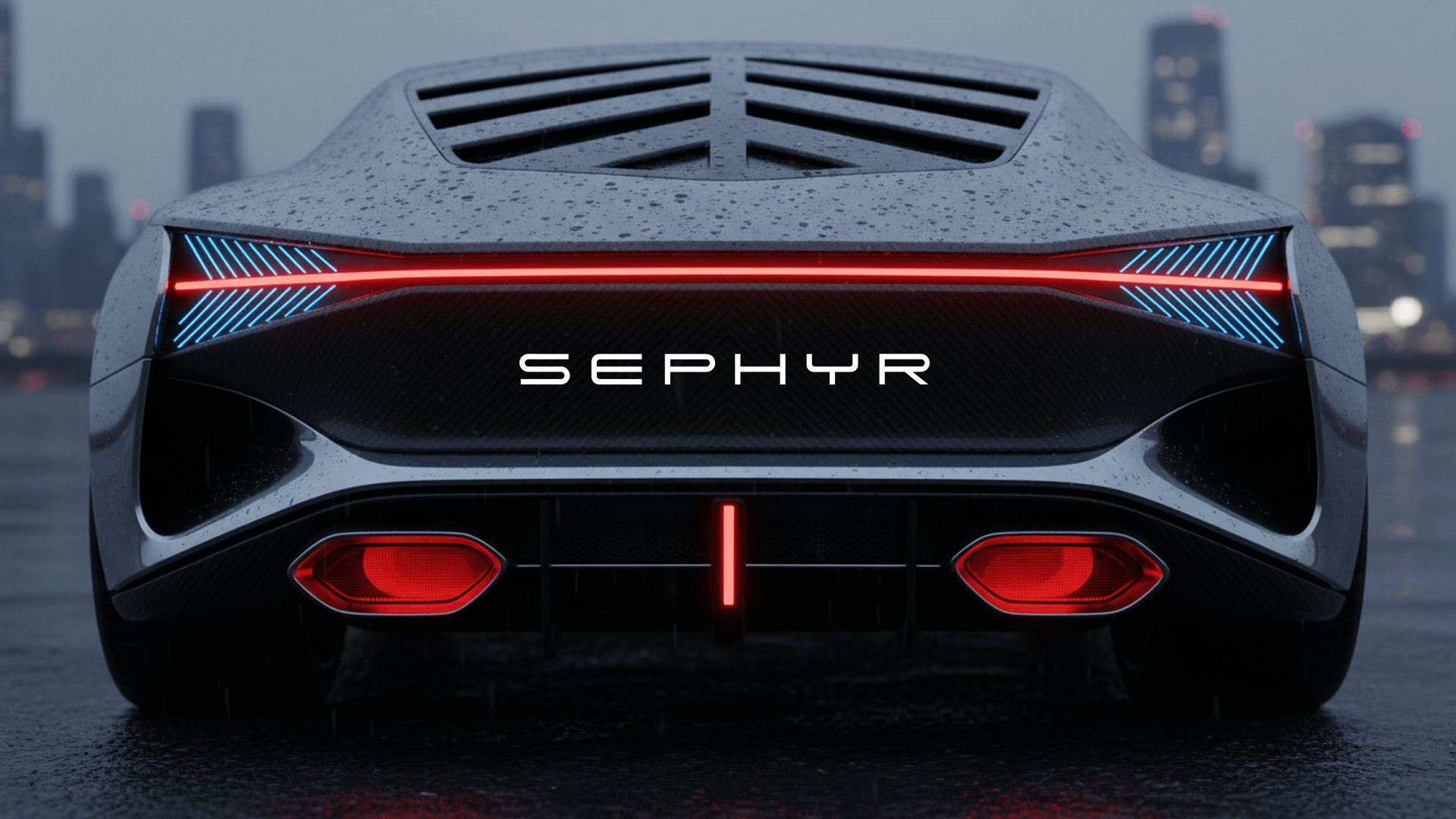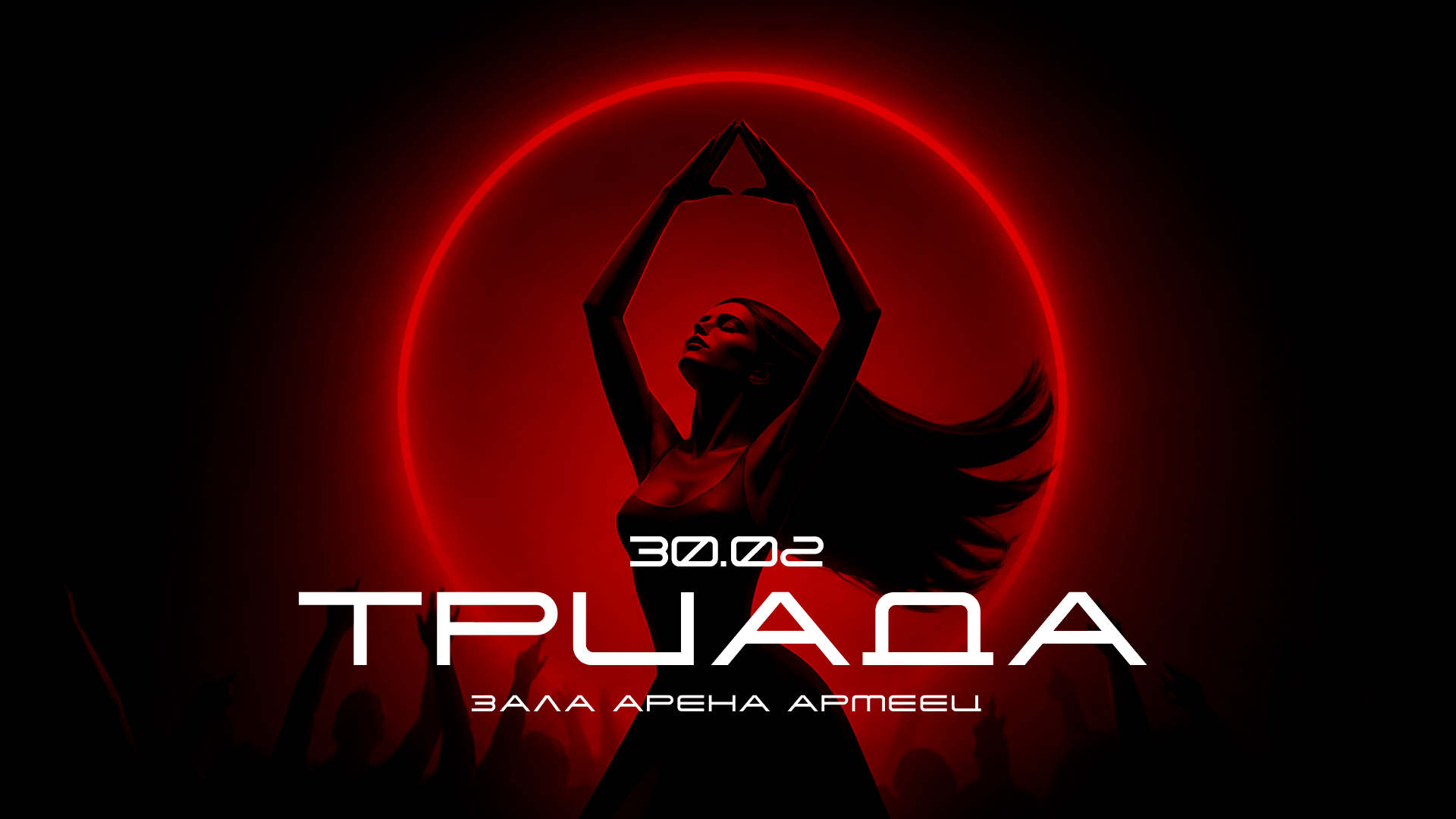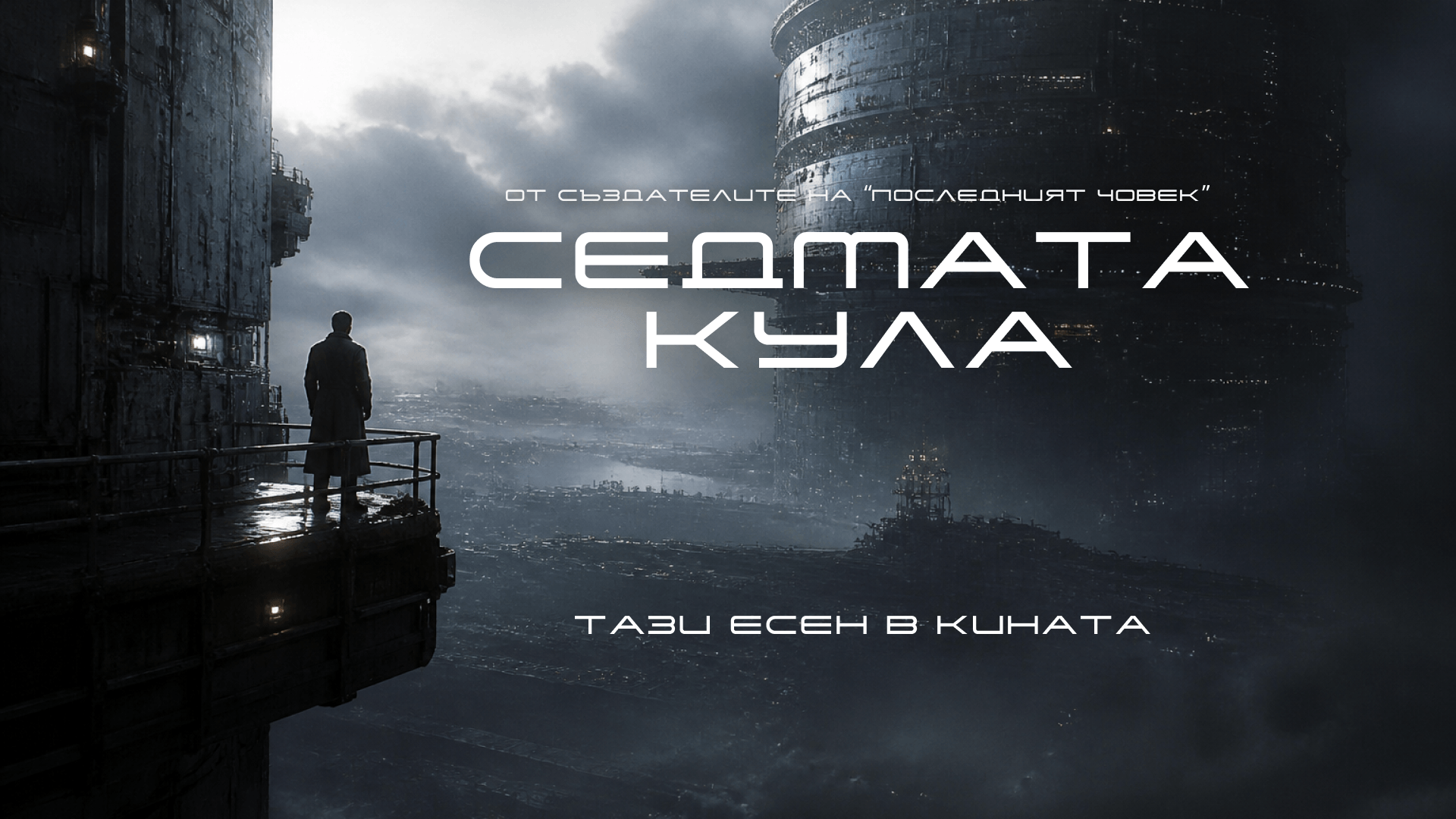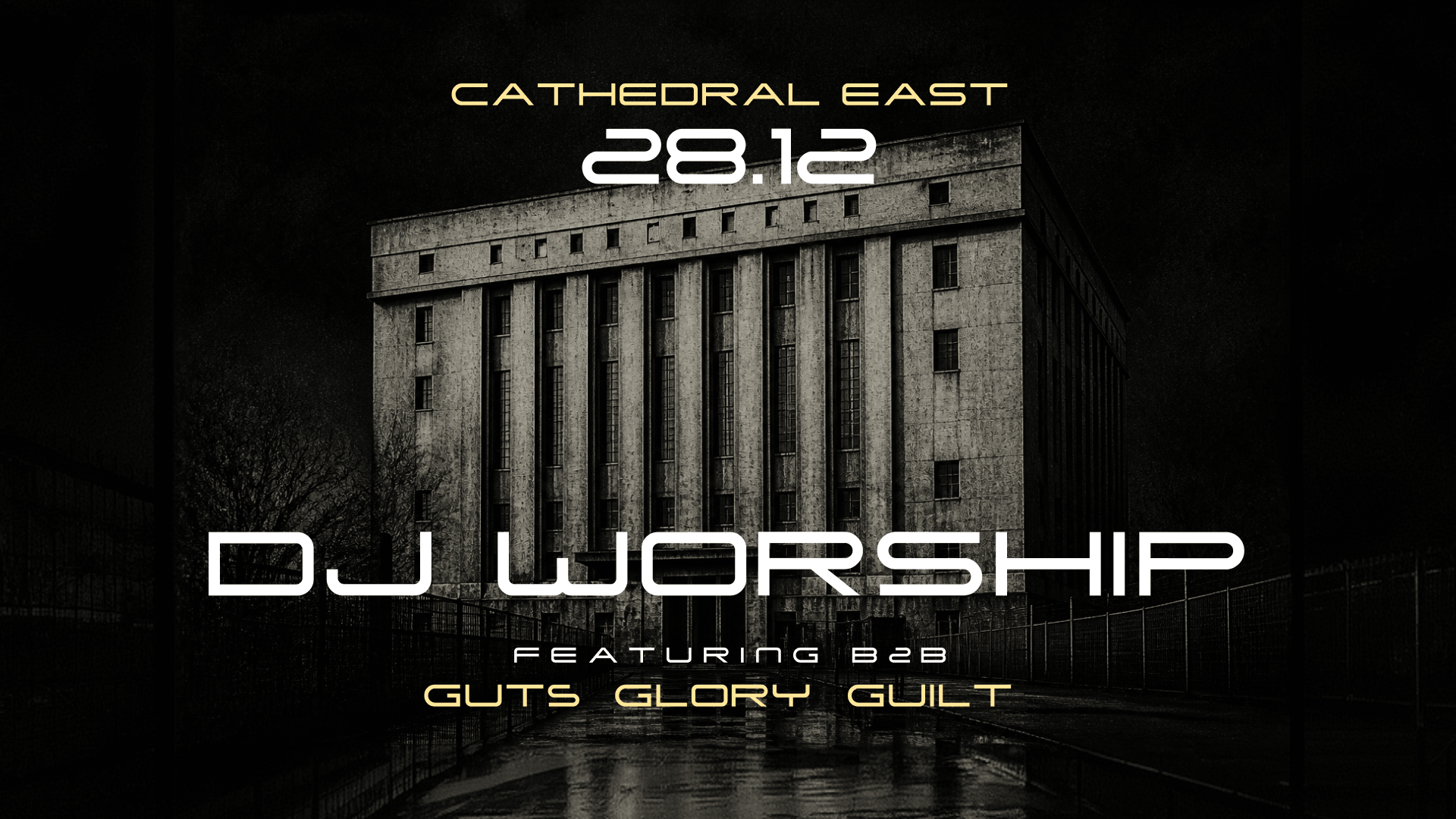
| Family Name | Gilermo |
| Designed By | WORSHIP |
| Category | display |
| Languages | Latin and Cyrillic |
Gilermo is our futuristic representation of a font that looks slick and modern. With its tighter letter spacing and simple shapes, it matches its reading speed to the sped-up pace of modern life.
Gilermo supports uppercase Latin and Bulgarian Cyrillic alphabets, making it a versatile pick for multilingual sci-fi and techno-inspired design work. It's built for short headlines and one-word titles.
This futuristic sci-fi font suits automobile typography and car branding, techno event posters, and sci-fi movie poster design - anywhere a project needs to feel high-speed and just slightly ahead of its time.